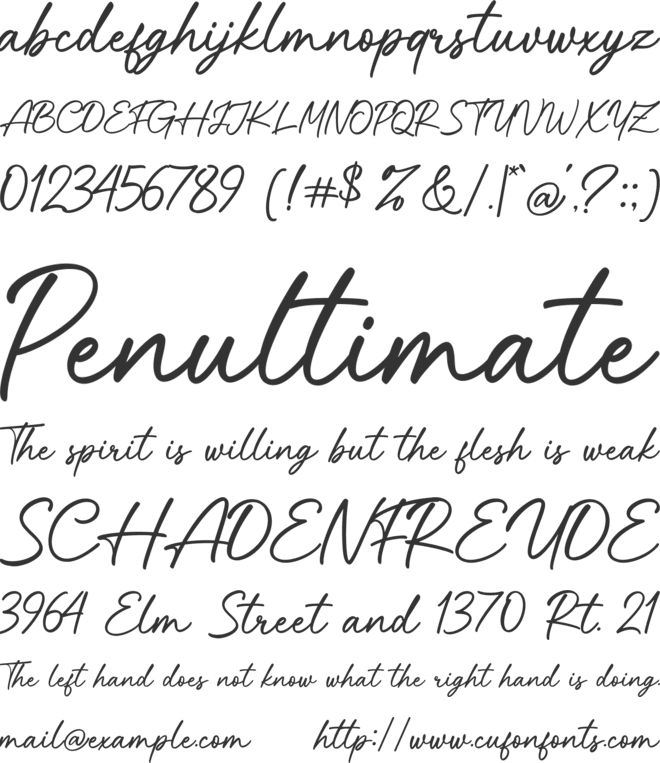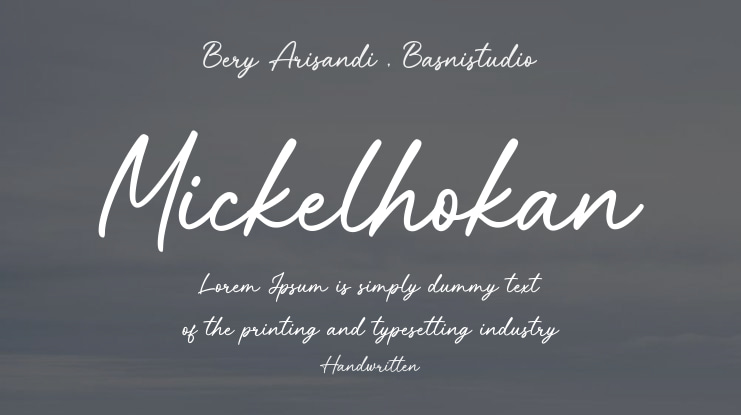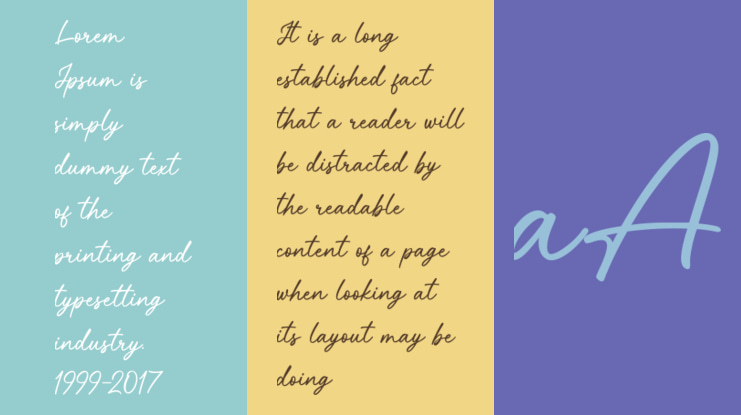
Mickelhokan Font
Bery Arisandi , Basnistudio
Mickelhokan, an elegant handwritten font crafted with authentic pen strokes for a sleek look and casual touch for everything from branding and social media to invitations and packaging.